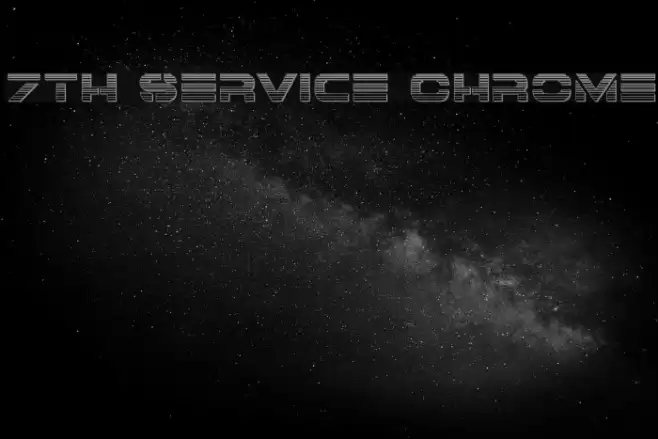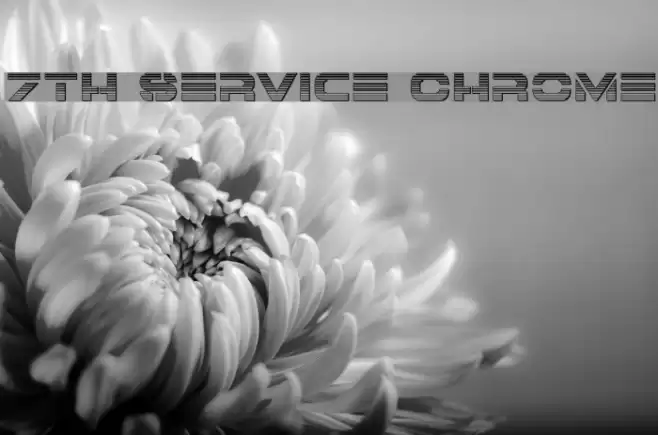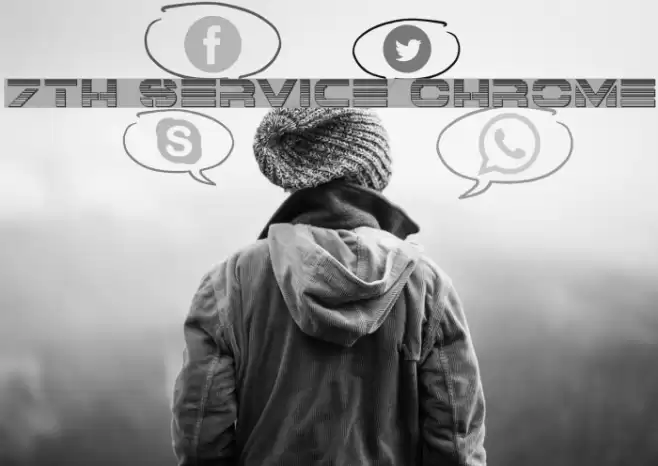
7th Service Chrome Font
7th Service Chrome Description
This font features a bold, futuristic design with a distinctive striped pattern running horizontally across each character. The geometric shapes and clean lines give it a modern, industrial feel. The uppercase letters are particularly striking, with a strong presence and unique style that makes them stand out. The numbers and special characters maintain the same aesthetic, ensuring consistency throughout the typeface. This font is ideal for projects that require a bold statement and a contemporary edge.
A bold, futuristic font with horizontal stripes and geometric shapes from Uncategorized fonts.
- Proposed Projects: Ideal for branding, posters, album covers, and tech-related designs.